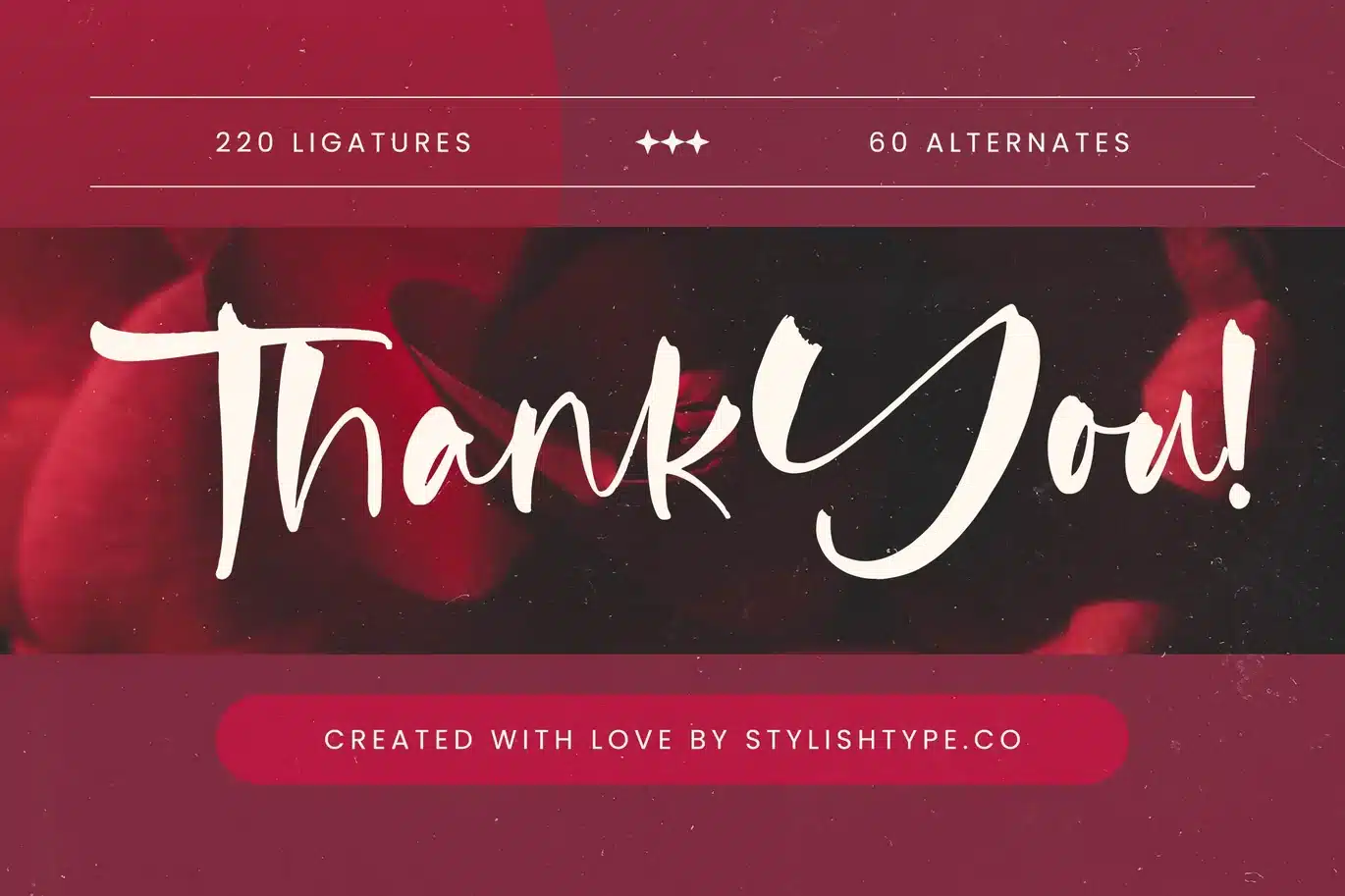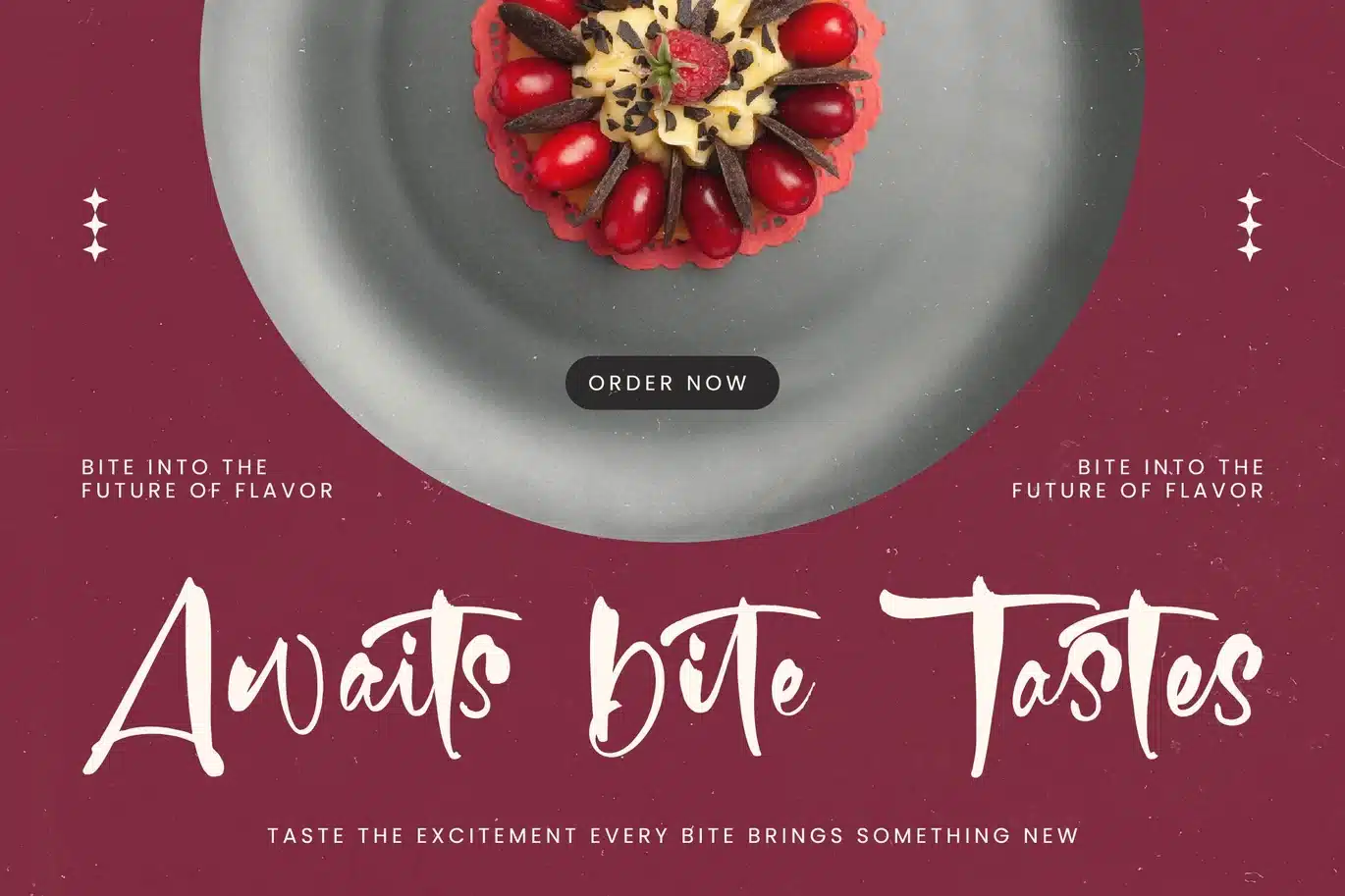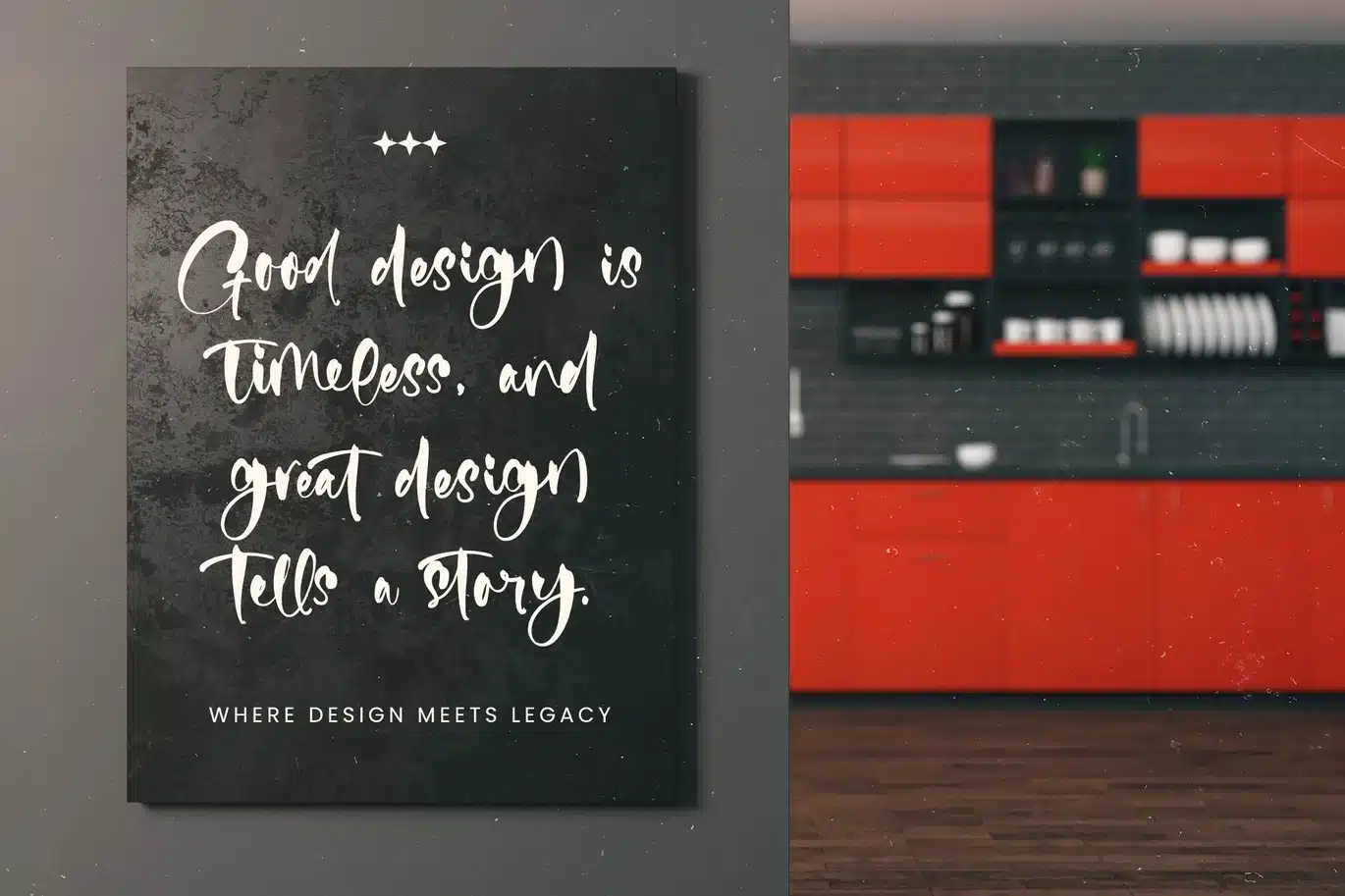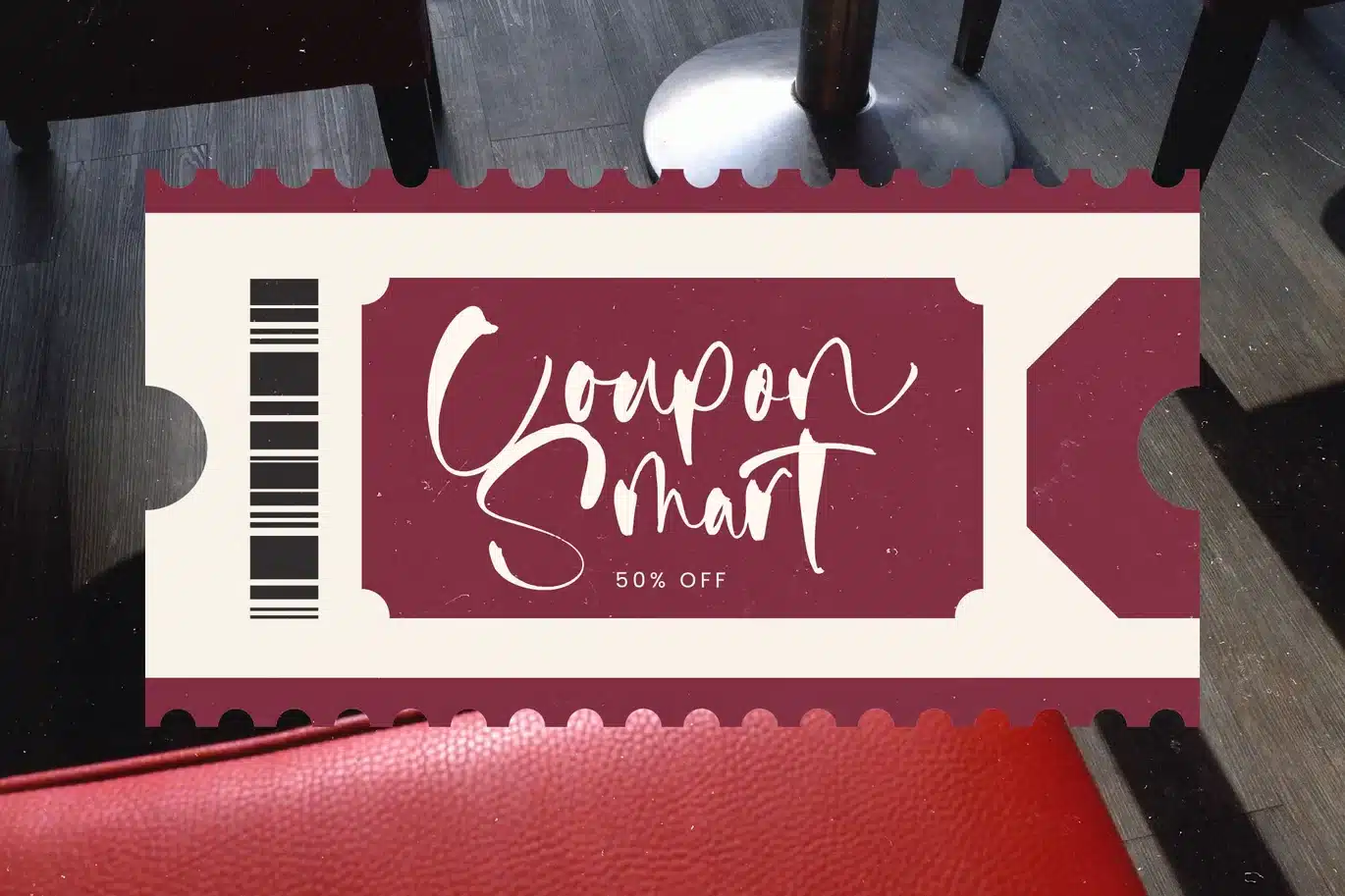
Fainter – Bold Brush Font
Fainter - Bold Brush Font
Unleash unparalleled creativity with Font Fainter - Bold Brush Font Script, a masterful typeface designed to make an unforgettable statement. This bold brush script captures the authentic spontaneity of hand-drawn lettering, delivering an expressive and dynamic visual signature. Its organic flow and robust strokes command attention, perfect for projects demanding a touch of genuine artistry and high-impact presence.
Experience limitless design possibilities through the extensive features of Font Fainter - Bold Brush Font Script. With an impressive collection of 220 ligatures and 60 alternates, this font ensures a genuinely unique and natural handwritten feel, eliminating repetition and offering unparalleled customization. This rich character set provides the tools for truly bespoke typography, elevating your design work with artistic flair.